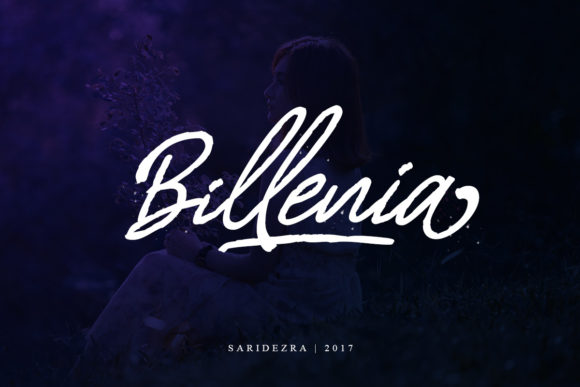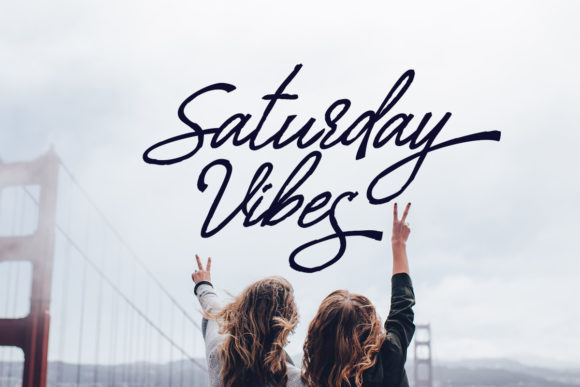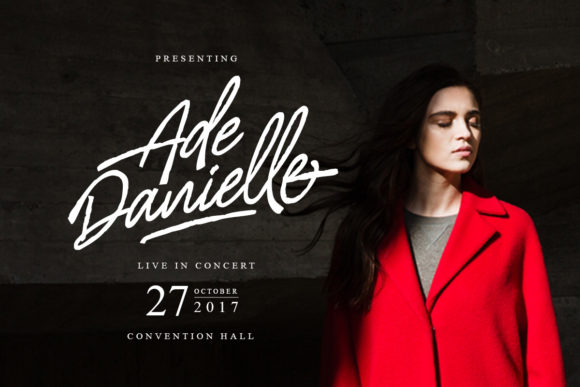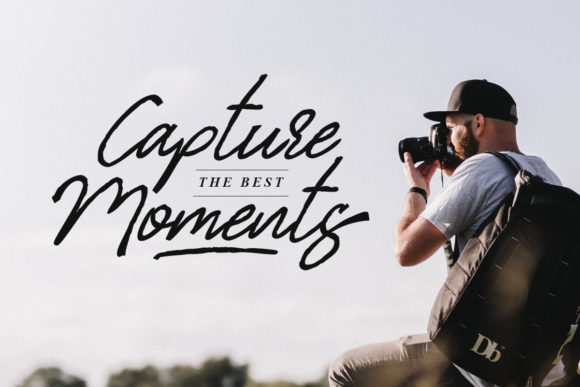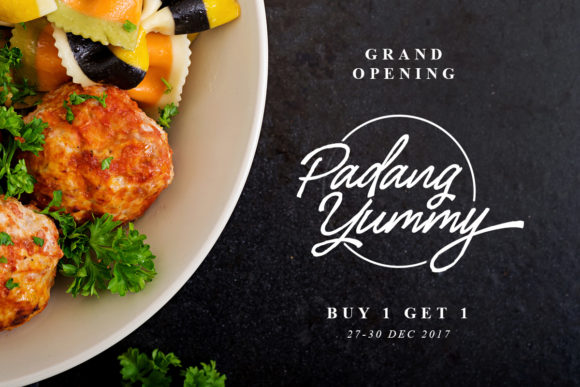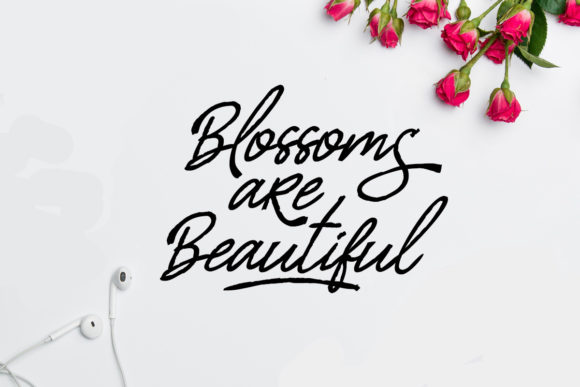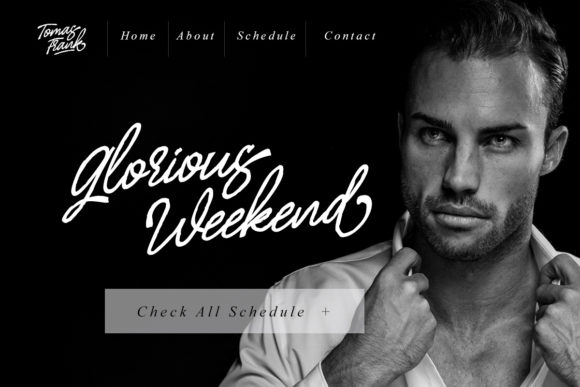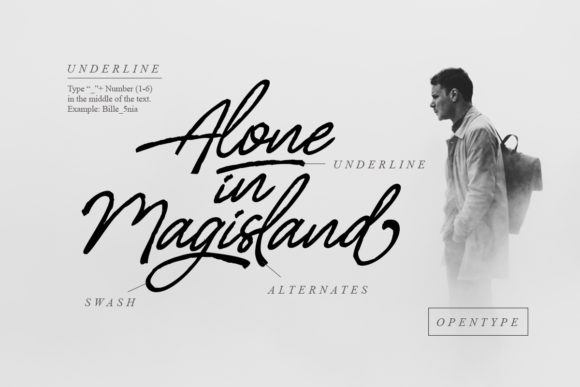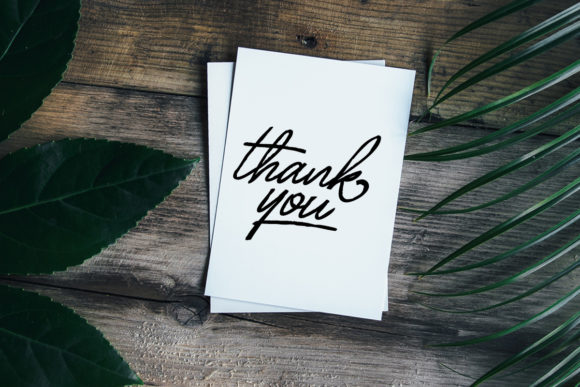
HomeScript FontsBillenia Font Script Fonts Billenia Font FacebookXPinterestWhatsApp Billenia Font Poster 2 Billenia Font Poster 3 Billenia Font Poster 4 Billenia Font Poster 5 Billenia Font Poster 6 Billenia Font Poster 7 Billenia Font Poster 8 Billenia Font Poster 9 About Billenia Font Billenia is striking handwritten font. Its elegant style makes it perfect for creating your own signature designs. DOWNLOAD NOW People also explored Jalliestha Font Tokiyo Bold Font Rolling Font Blaster Font Arabela Font Big Bad Bold BB Tracker Font Qarthina Selina Font Sutton Brent Font 267 0 TagsBillenia Font Previous articleMadgue FontNext articleShutter Stone Font LEAVE A REPLY Cancel reply Comment: Please enter your comment! Name:* Please enter your name here Email:* You have entered an incorrect email address! Please enter your email address here Website: Save my name, email, and website in this browser for the next time I comment. Personal Use Free Sefiya Personal Use Free Read more about this font Brittish State Personal Use Free Read more about this font Shelly Personal Use Free Read more about this font Eniem Personal Use Free Read more about this font BLOG Where to Buy American Fonts Online in 2024 Where to Buy American Fonts Online: The Ultimate Guide for 2024 Looking for the perfect American font to elevate your design projects? You're in the... Free vs Paid Fonts: Why Investing in Premium Fonts Is Worth It Top 7 Google Fonts Alternatives for Faster and Privacy-Friendly Web Design (2025) The 10 Best Handwriting Fonts to Add Personality to Your Designs